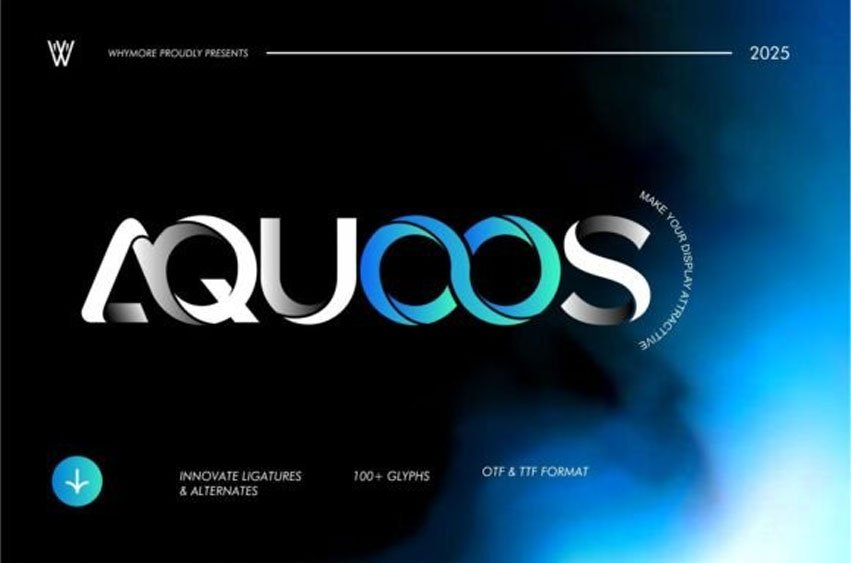
Aquoos Font Elevate your designs with AQUOOS, a cutting-edge futuristic display font that merges innovation and elegance. Crafted with dynamic ligatures and alternates, AQUOOS is perfect for projects that demand a modern and forward-thinking aesthetic.
This font is versatile yet distinct, making it an excellent choice for branding, logo design, tech-inspired visuals, and web or mobile applications. Its sleek and minimalistic design ensures readability while adding a touch of sophistication to headlines, posters, and promotional materials.